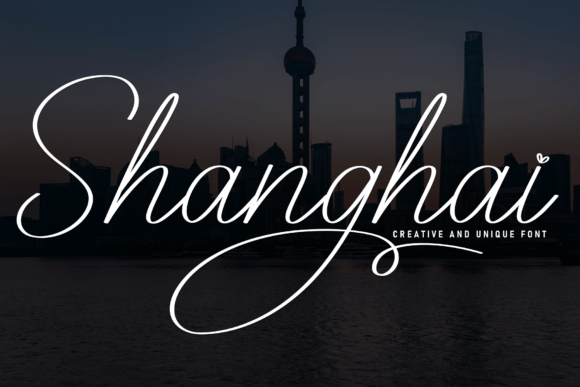
Unleash Your Creativity with Shanghai Font: The Epitome of Elegance and Modernity!
In the world of digital artistry, fonts hold the power to transform words into captivating expressions of art. Meet Shanghai Font, a breathtaking script font that will sweep you off your feet and elevate your projects to awe-inspiring heights. Designed with meticulous attention to detail by the renowned andikastudio, Shanghai Font is the epitome of sophistication and contemporary flair.
As its name suggests, Shanghai Font embodies the allure and mystique of the vibrant metropolis, capturing the essence of East meets West. Its intricate strokes, sweeping curves, and subtle flourishes evoke a sense of timeless elegance, while maintaining a refreshingly modern aesthetic. Whether you're a seasoned designer or just starting out, Shanghai Font is the perfect tool to add a touch of magic to your creations.
Dive into the boundless possibilities of Shanghai Font and let your imagination soar. Perfect for display purposes, this font shines brightest in headlines, logos, branding materials, and social media posts. Its captivating charm is sure to leave a lasting impression, grabbing the attention of your audience and setting your projects apart from the ordinary.
Shanghai Font's versatility extends far beyond display. Its inherent beauty lends itself effortlessly to wedding invitations, greeting cards, posters, flyers, and even book covers. Let your creativity flow as you explore the endless applications of this remarkable font, transforming your designs into masterpieces that resonate with your audience.
At Shanghai Font, we believe in the power of individuality and self-expression. That's why we've crafted this font with meticulous care, ensuring that each character carries its own unique personality. With Shanghai Font, you'll never have to settle for cookie-cutter designs again. Embrace the freedom to express your personal style and let your creativity shine through.
Join the growing community of designers, artists, and creatives who have fallen in love with Shanghai Font. Experience the joy of working with a font that not only enhances your projects but also fuels your inspiration. Let Shanghai Font be your creative companion, guiding you to new heights of artistic achievement.